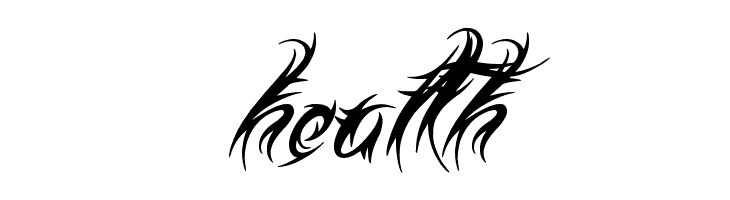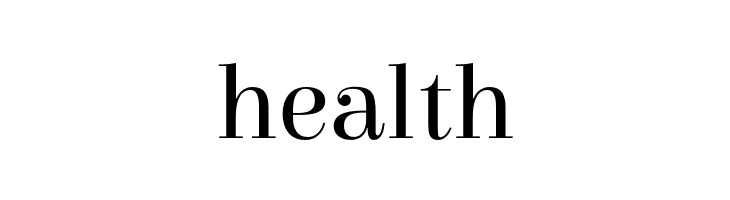
( Fonts by Jonathan Harris - www.tattoowoo.com )
An ornate, medieval-inspired font with dramatic flourishes and bold strokes.
( Fonts by Bumbayo Font Fabrik - bumbayo.blogspot.com )
A Gothic Blackletter font with intricate, angular letterforms and decorative flourishes.
( Fonts by Adien Gunarta - fontasticindonesia.blogspot.com )
An artistic, calligraphic font with elegant curves and decorative flourishes.
( Fonts by Maelle.K - Thomas Boucherie )
Intricate decorative elements with swirls, flourishes, and heart motifs.
( Fonts by Sam Wang )
A decorative Gothic-style font with intricate flourishes and bold strokes.
An elegant serif font with decorative swashes and flourishes.